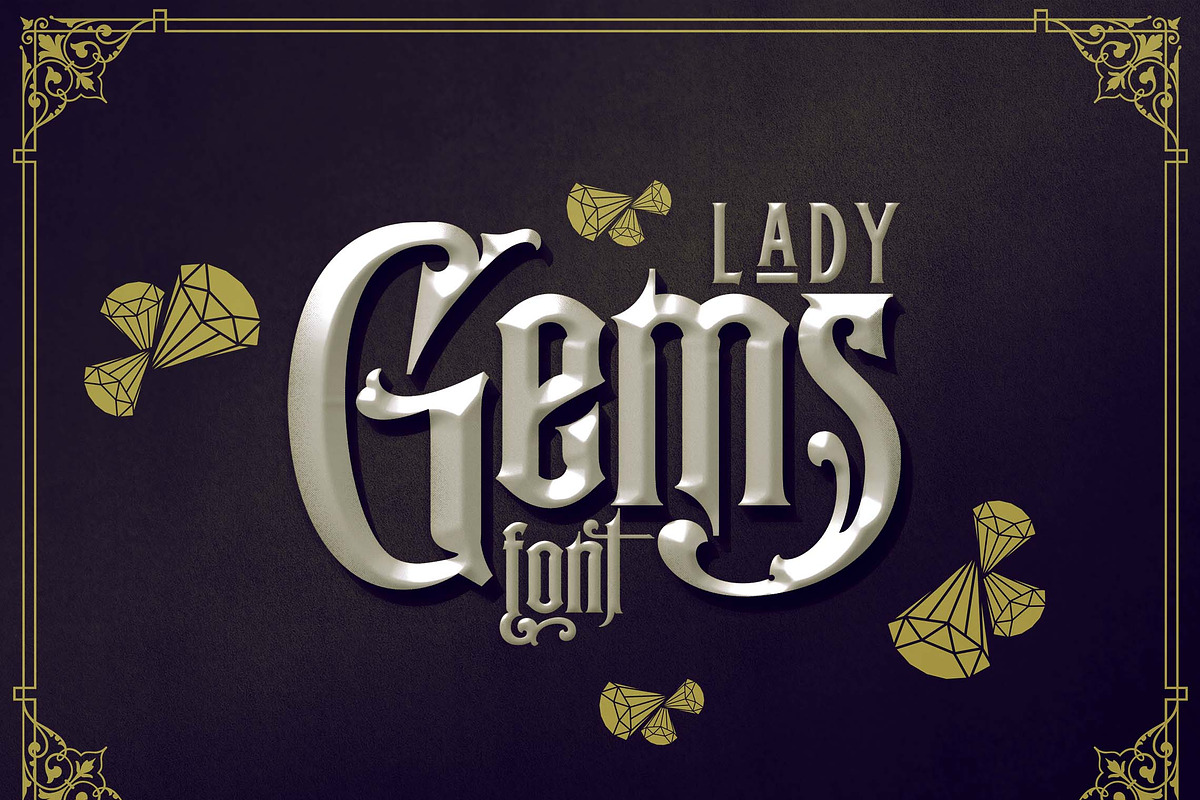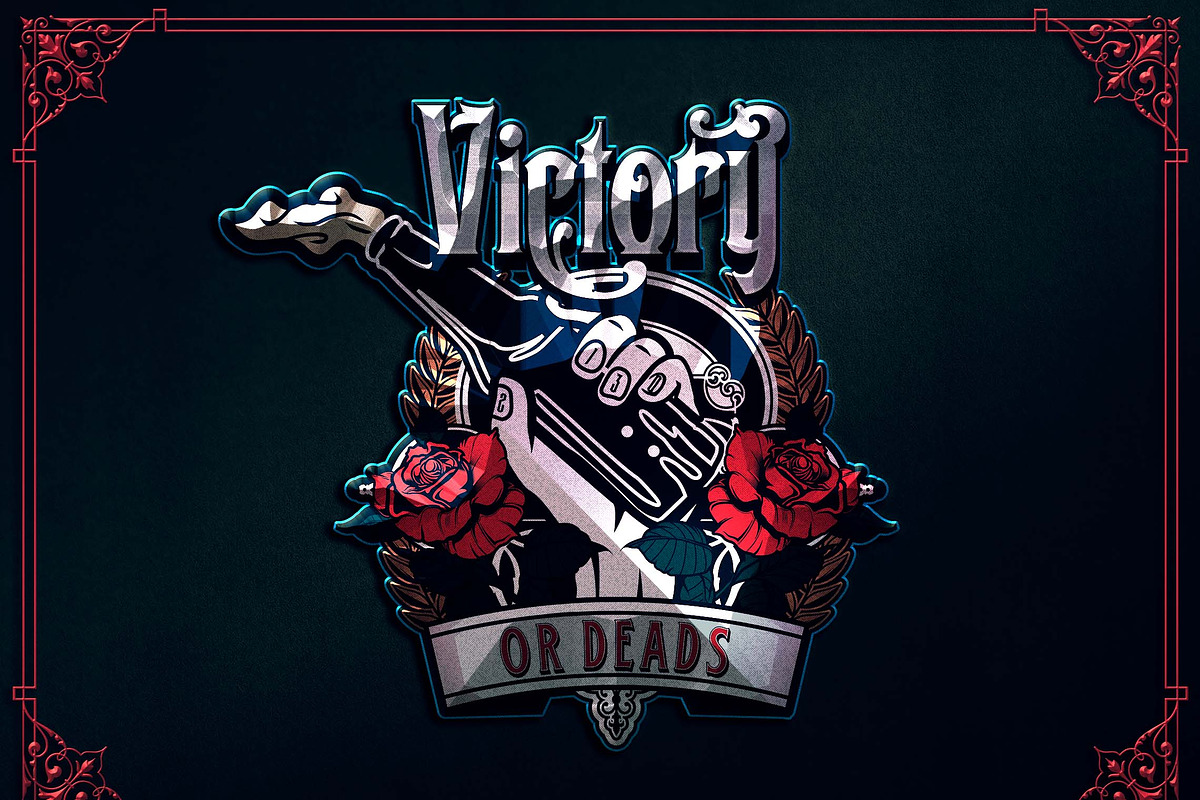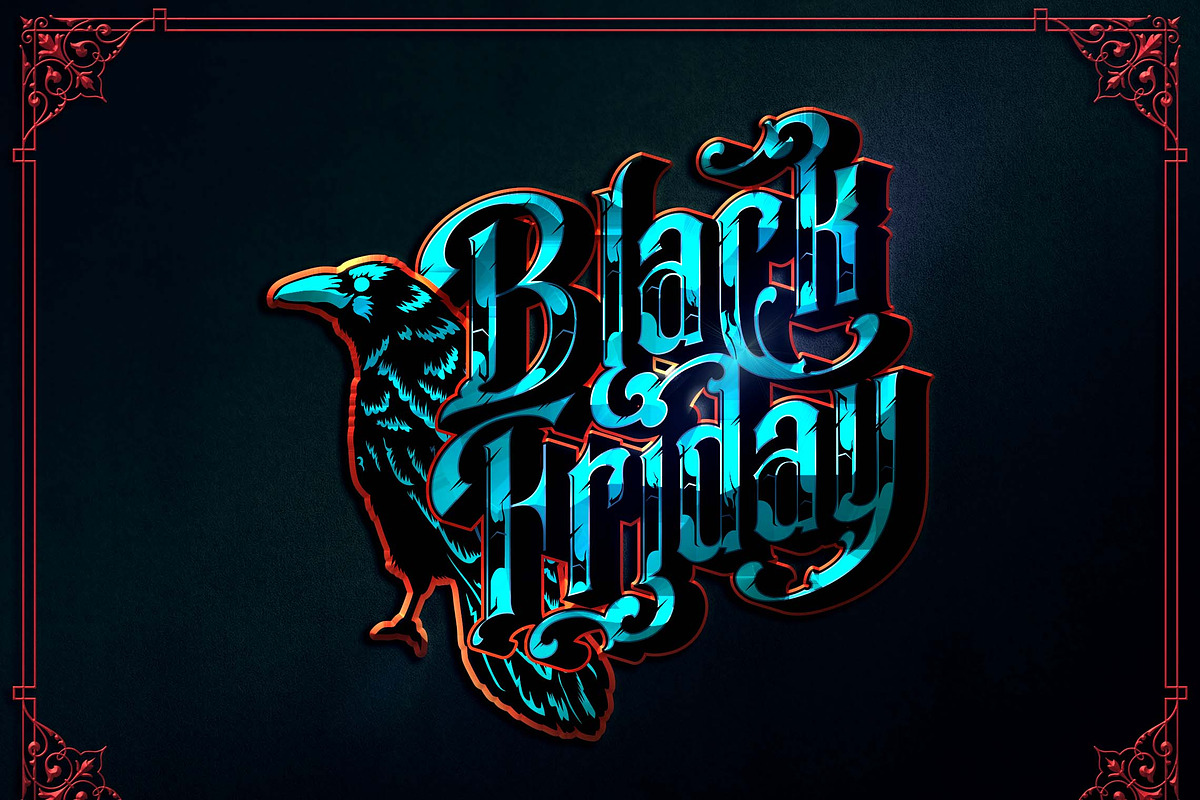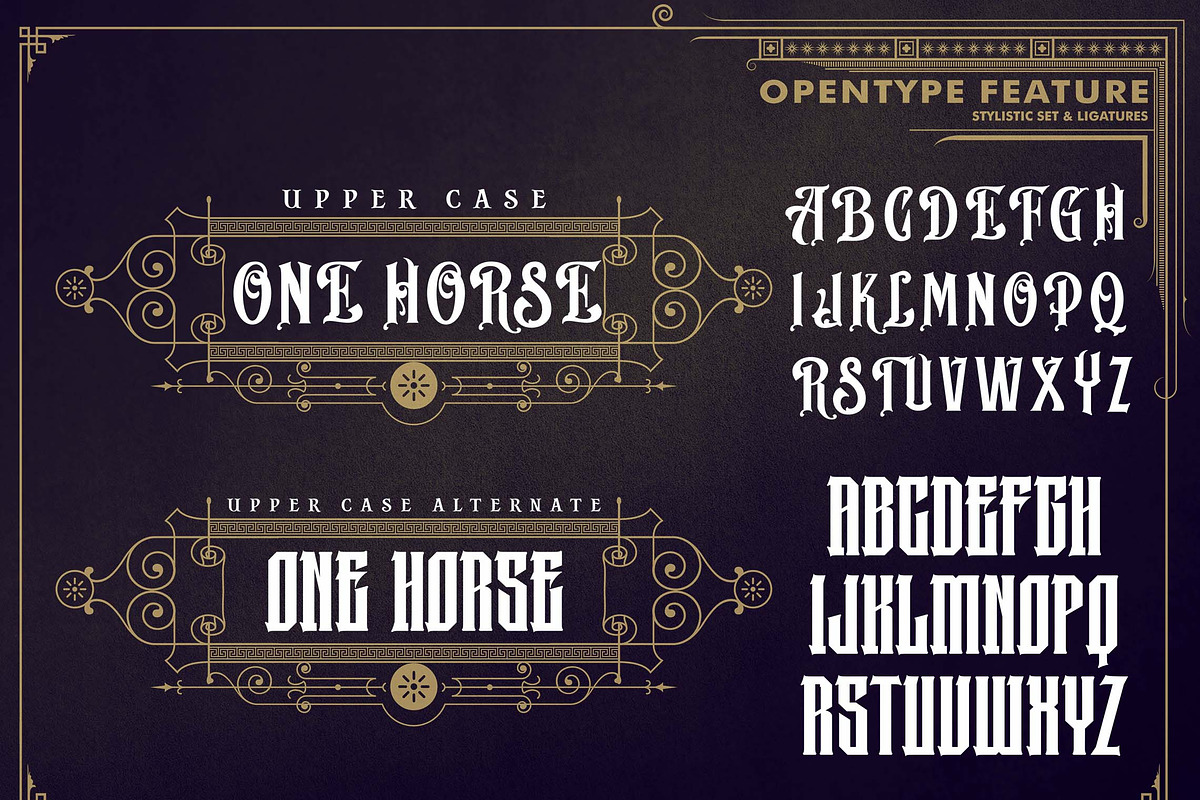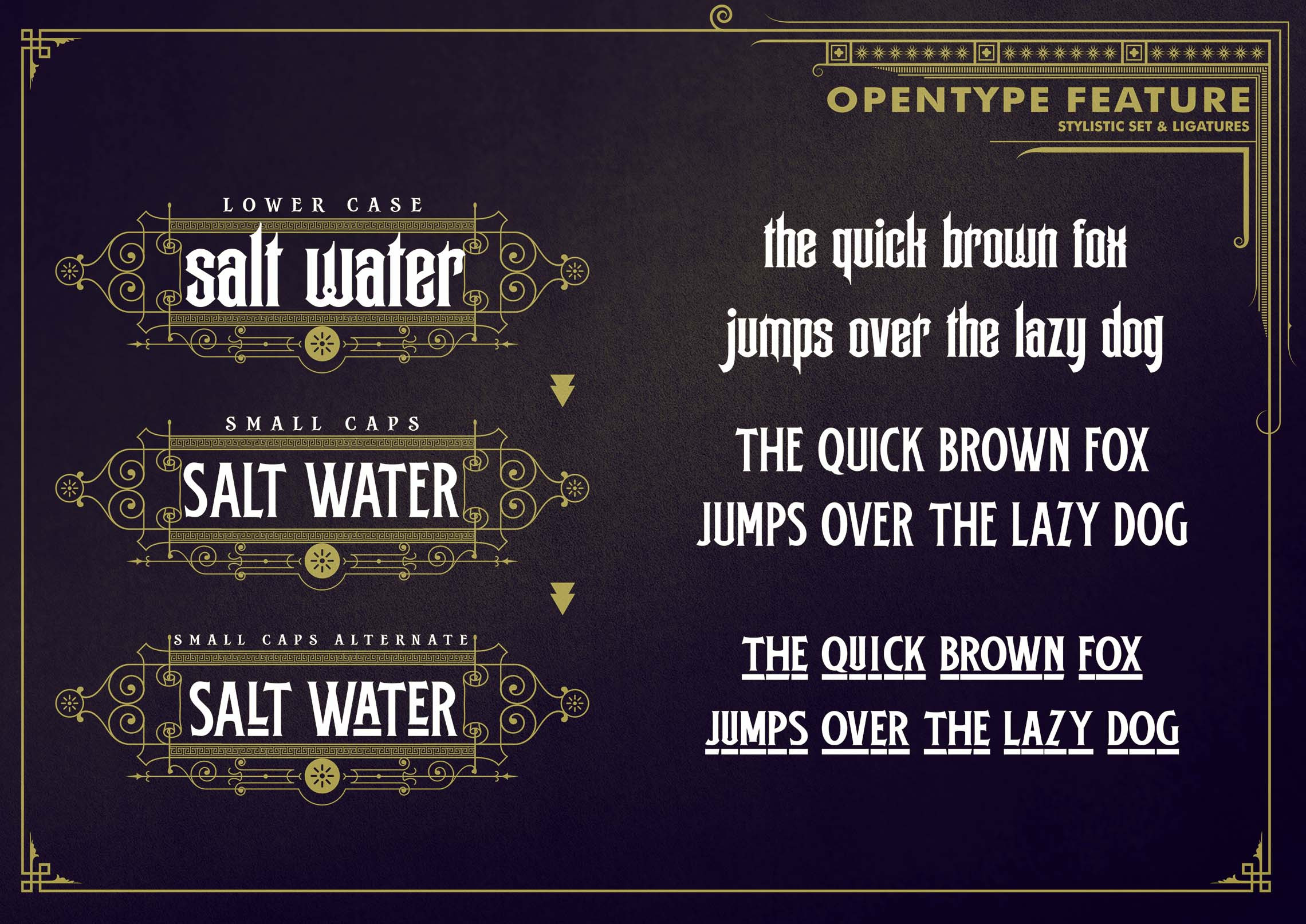
Lady Gems Font
Lady Gems font is a font with classic style, easy to use for your project needs, this font has opentype feature for lowercase and Upercase. This font has differents styles which can be used through the opentype feature. cheers!!